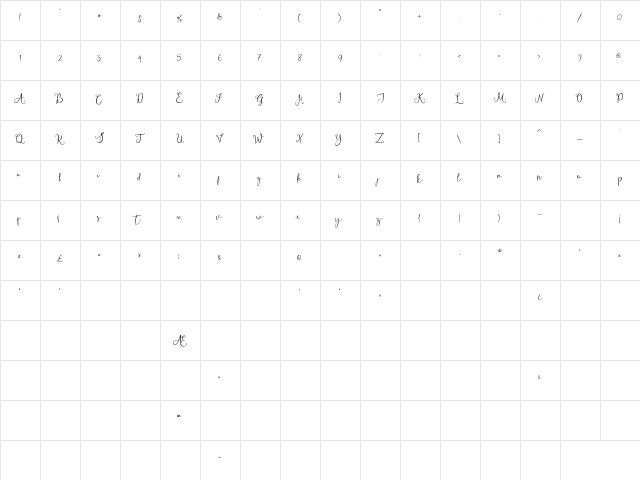
betterlife Regular
| Designer | Creaditive |
Design Context for betterlife Typeface
betterlife is a composed and adaptable typeface that performs quietly and consistently across a wide range of design contexts.